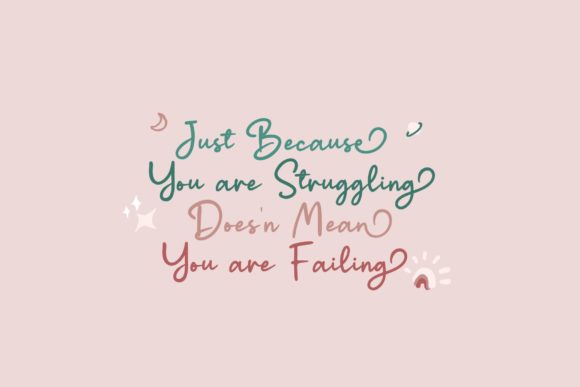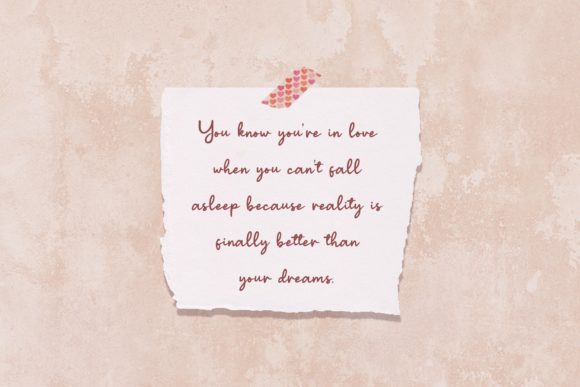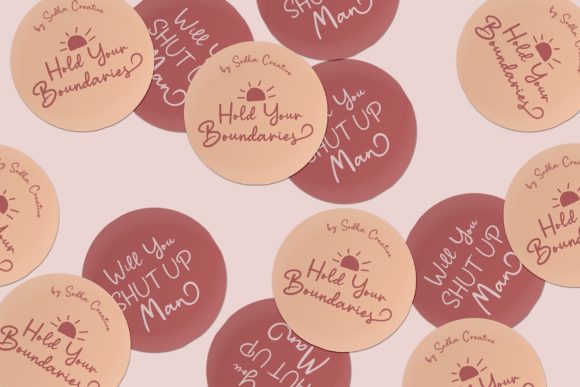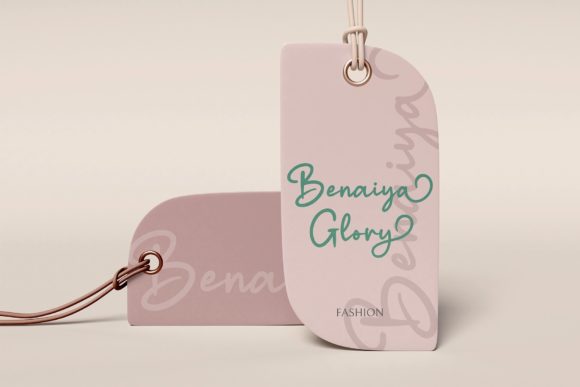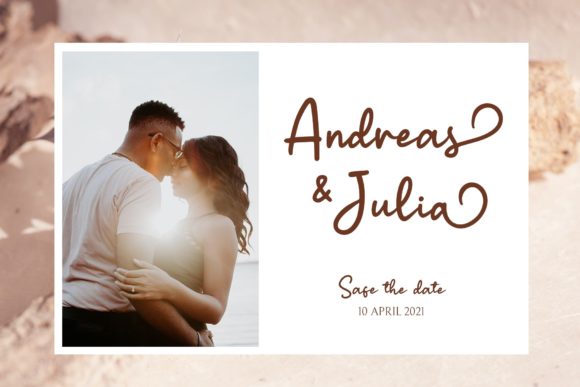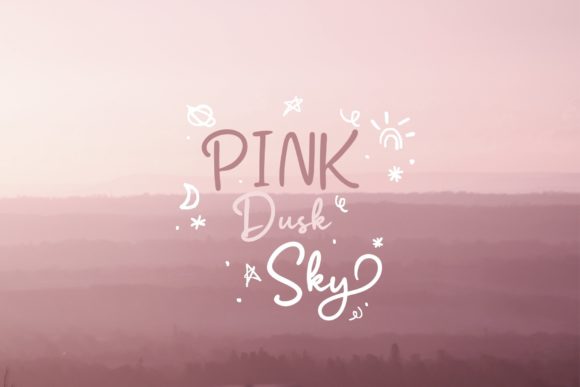
Discover the Delight of Barly – Cute Script Font
Have you ever been brainstorming a design project, only to have it come to life the moment you found the perfect font? For many designers, this moment is what makes all the hard work worth it. And if you’re looking for that special something to elevate your next design, we’re excited to introduce you to the Barly – Cute Script Font.
This charming handwritten font is more than just a pretty face – its delicate and elegant style makes it the perfect choice for a wide range of designs, from wedding invitations to social media graphics. Whether you’re a seasoned designer or just starting out, the Barly – Cute Script Font is a valuable addition to your toolkit, offering a level of versatility that’s hard to find in other fonts.
Barly – Cute Script Font Features
- Unique Characteristics: Whimsical, handwritten feel with rounded edges and subtle flair, perfect for creative and feminine designs
Designer Review: Barly – Cute Script Font
Overall, I think Barly – Cute Script Font is a charming addition to any design project. The script font is perfect for adding a touch of whimsy and playfulness to text-based content.
- Unique and Quirky Style: The script font has a distinct, hand-drawn feel that adds a lot of character to text.
- Highly Legible: Despite its playful nature, the font is surprisingly easy to read, even at smaller font sizes.
- May Not be Suitable for Formal Content: Due to its playful nature, Barly – Cute Script Font may not be the best choice for formal or professional content.
- Limited Font Sizes: While the font is legible, it’s not as clear at very large font sizes, which may limit its use in certain applications.
- No Matching Italic Version: The font only comes in a regular version, which may make it difficult to create emphasis or use in certain contexts.
Overall, I think Barly – Cute Script Font is a great choice for designers looking to add some personality to their text-based content. While it may have some limitations, its unique style and high legibility make it a great addition to any design project.
Getting the Most Out of Barly
For optimal results, use Barly in combination with other cute and playful fonts.
Experiment with different font sizes, colors, and styles to create a visually appealing design.
Use Barly for headings, titles, and other attention-grabbing elements.
Barly is ideal for:
• Invitations and party decorations
• Children’s books and educational materials
• Social media graphics and advertising
• Wedding and event invitations
Alternatives to Barly – Cute Script Font
Great Vibes is a beautiful, elegant script font suitable for formal and creative projects. It’s ideal for designing wedding invitations, certificates, and other special occasion materials. Great Vibes is more refined and polished than Barly – Cute Script Font, making it a great choice for high-end designs.
Ostrich Sans is a modern, sans-serif script font perfect for creating bold and playful designs. It’s great for use in digital products, such as apps, websites, and social media graphics. Ostrich Sans is more geometric and modern than Barly – Cute Script Font, making it ideal for contemporary and trendy projects.
Carolyna Pro is a beautiful, elegant script font suitable for luxury brands and high-end designs. It’s ideal for designing logos, packaging, and other branding materials. Carolyna Pro is more sophisticated and refined than Barly – Cute Script Font, making it a great choice for premium and exclusive projects.
Literata
Literata is a modern, elegant script font perfect for creating sophisticated and refined designs. It’s great for use in luxury branding, packaging, and other high-end materials. Literata is more classic and timeless than Barly – Cute Script Font, making it ideal for traditional and vintage-inspired projects.